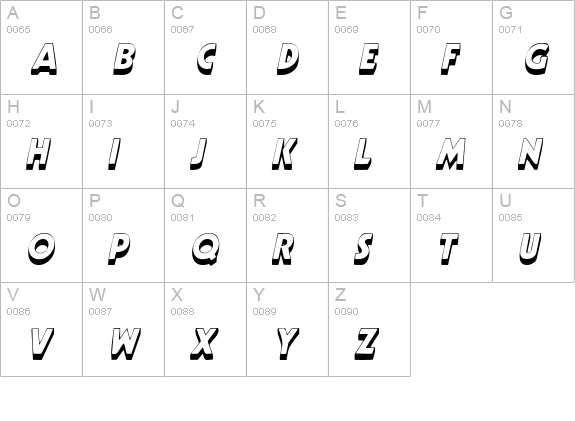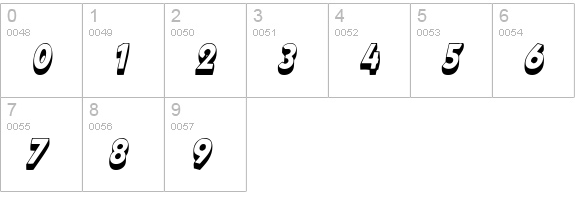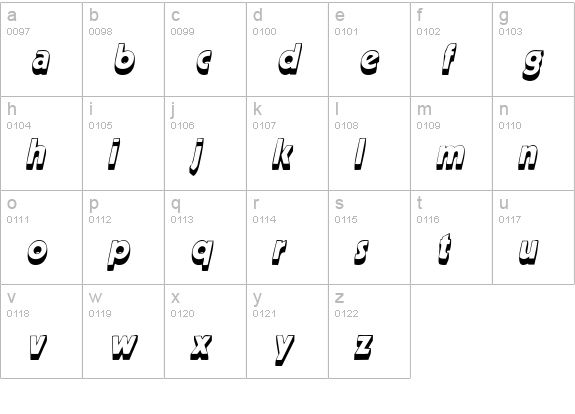
MeppDisplayShadow Italic Font Details
MeppDisplayShadow Italic is a distinctive, italic variant in the MeppDisplayShadow typeface family \xE2\x80\x94 well suited to design and typography projects.
MeppDisplayShadow Italic font is a bold and dynamic typeface that exudes a sense of energy and modernity. Its slanted design adds a touch of sophistication and flair to any project, making it ideal for eye-catching headings or branding materials. The sharp shadows give the text a three-dimensional effect, adding depth and visual interest. This versatile font is perfect for a wide range of design projects, from posters and flyers to digital presentations and social media graphics. Whether you're looking to make a statement or simply want to add a touch of style to your text, MeppDisplayShadow Italic font has got you covered. Best of all, MeppDisplayShadow Italic font is completely free to download at FontsMarket.com. So go ahead and elevate your design projects with this striking and stylish typeface today!